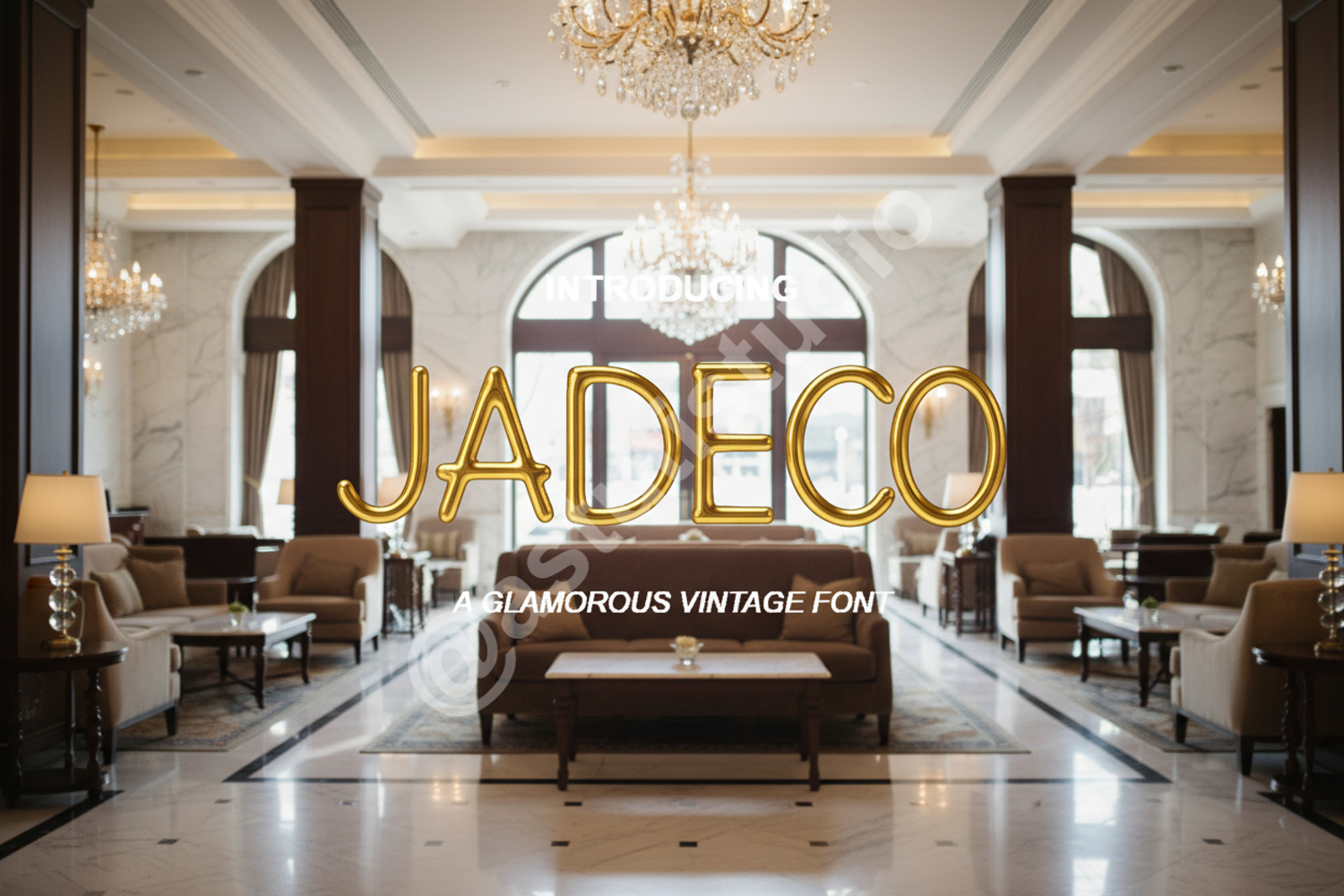
Jadeco - Modern Elegant Serif Typeface
Jadeco
Elevate your design projects with Jadeco, a premium serif typeface designed for sophistication and versatility. This font balances classic elegance with modern proportions, making it a perfect choice for designers looking to add a touch of high-end luxury to their work. Whether you are crafting a minimalist logo or a detailed editorial layout, Jadeco provides the precision and aesthetic appeal required for professional results.
Jadeco is highly versatile and performs beautifully across various mediums, including:
- Luxury Branding and Identity: Create memorable logos and brand marks.
- Wedding Invitations and Stationery: Add a timeless feel to special event materials.
- Editorial Design: Perfect for magazine headers, book covers, and body text.
- Social Media Graphics: Enhance your digital presence with clean, stylish typography.
- Product Packaging: Elevate consumer goods with a premium typographic touch.